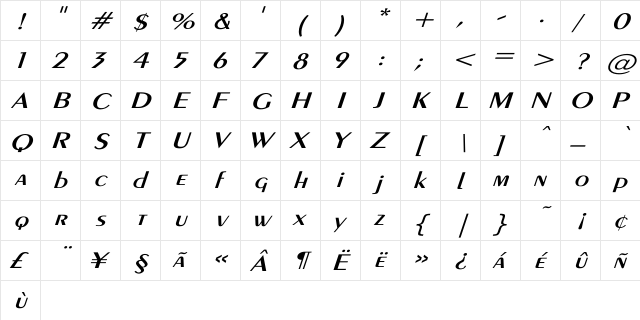
Exotic-Demi Wd Itc Italic
Design Context for Exotic-Demi Wd Itc Typeface
Exotic-Demi Wd Itc takes a measured approach to typography — its balanced proportions and neutral character make it a reliable workhorse for both digital and print work. The dynamic lean of this cut emphasises speed and emphasis in any layout.